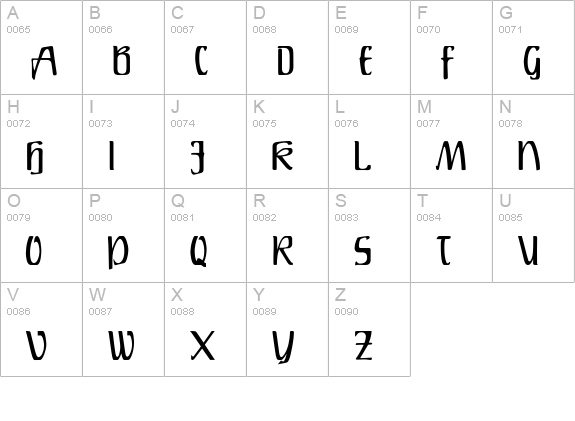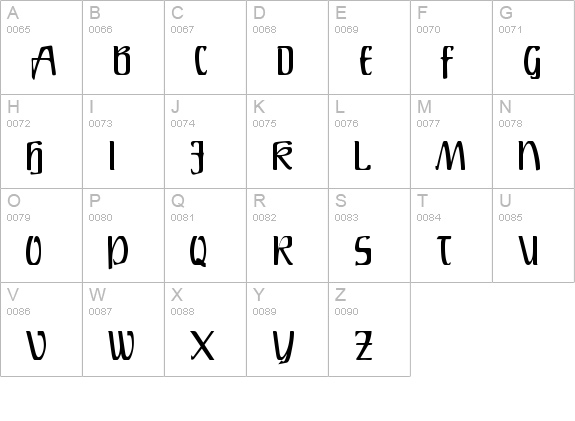
Durango font is a versatile and modern typeface that exudes a sense of elegance and sophistication. With its clean lines and unique letterforms, Durango is perfect for a wide range of design projects, from logos to branding materials to web design. This font is free to download at FontsMarket.com, making it accessible to designers of all levels looking to elevate their work with a touch of sophistication and style. Whether you're working on a professional project or a personal one, Durango font is sure to make a bold statement and leave a lasting impression on your audience.